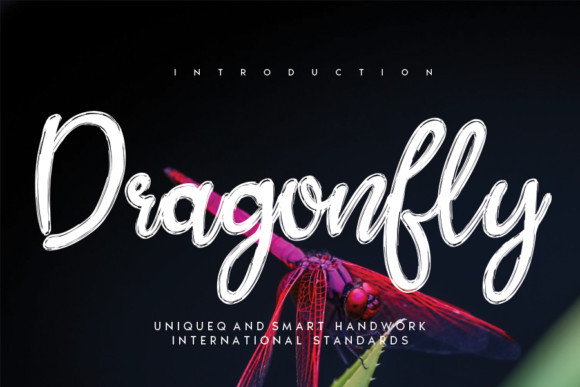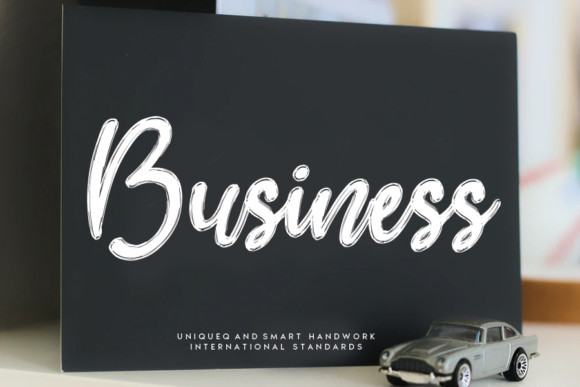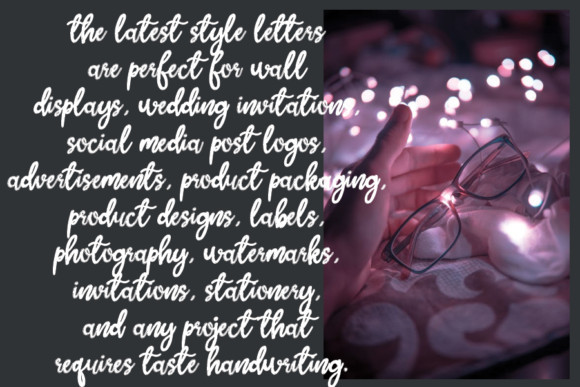
Dragonfly Font
Dragonfly is a cute and casual handwritten font with an incredibly friendly feel. Whether you’re looking for fonts for Instagram or calligraphy scripts for DIY projects, Dragonfly will turn any creative idea into a true piece of art!